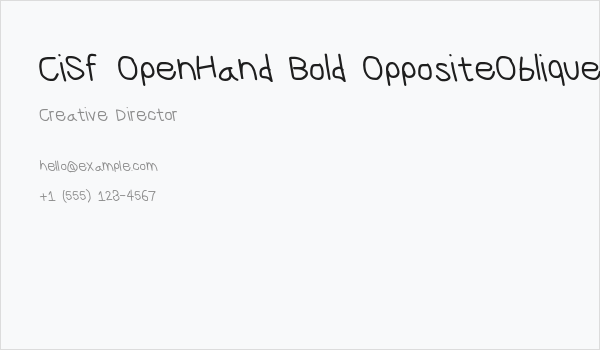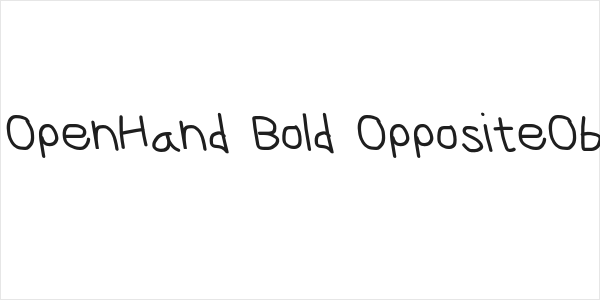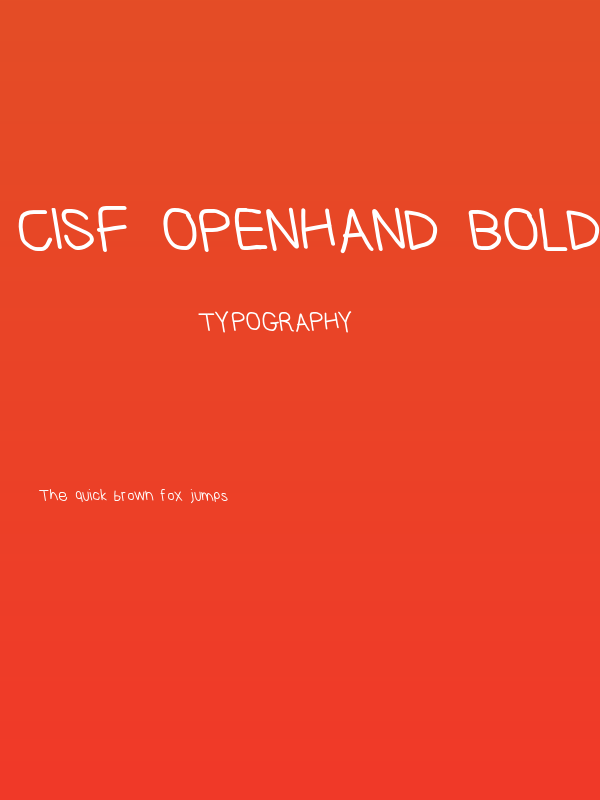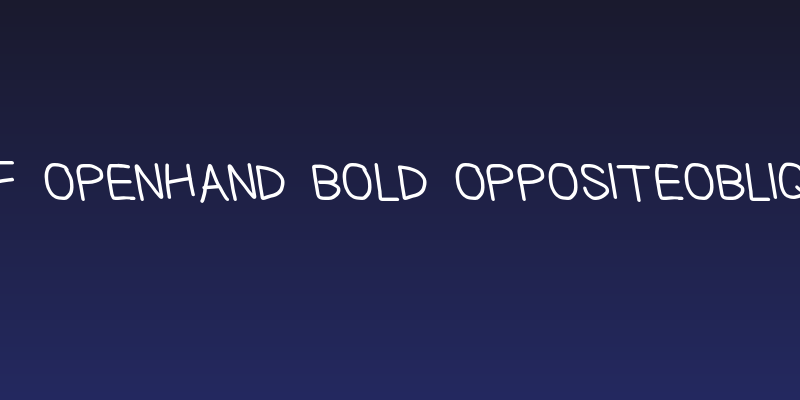
CiSf OpenHand Bold OppositeOblique Font
CiSf OpenHand Bold OppositeOblique Description
This font features a playful and informal style, characterized by its handwritten appearance. The letters are slightly irregular, giving it a casual and approachable feel. The strokes are consistent in width, contributing to a uniform look despite the informal style. The uppercase and lowercase letters maintain a consistent height, and the numerals are clear and easy to read. Special characters are included, matching the overall playful aesthetic. This font is well-suited for projects that require a friendly and informal touch.
| Proposed Projects | Ideal for children's books, casual invitations, personal blogs, and creative projects that benefit from a friendly and informal tone. |